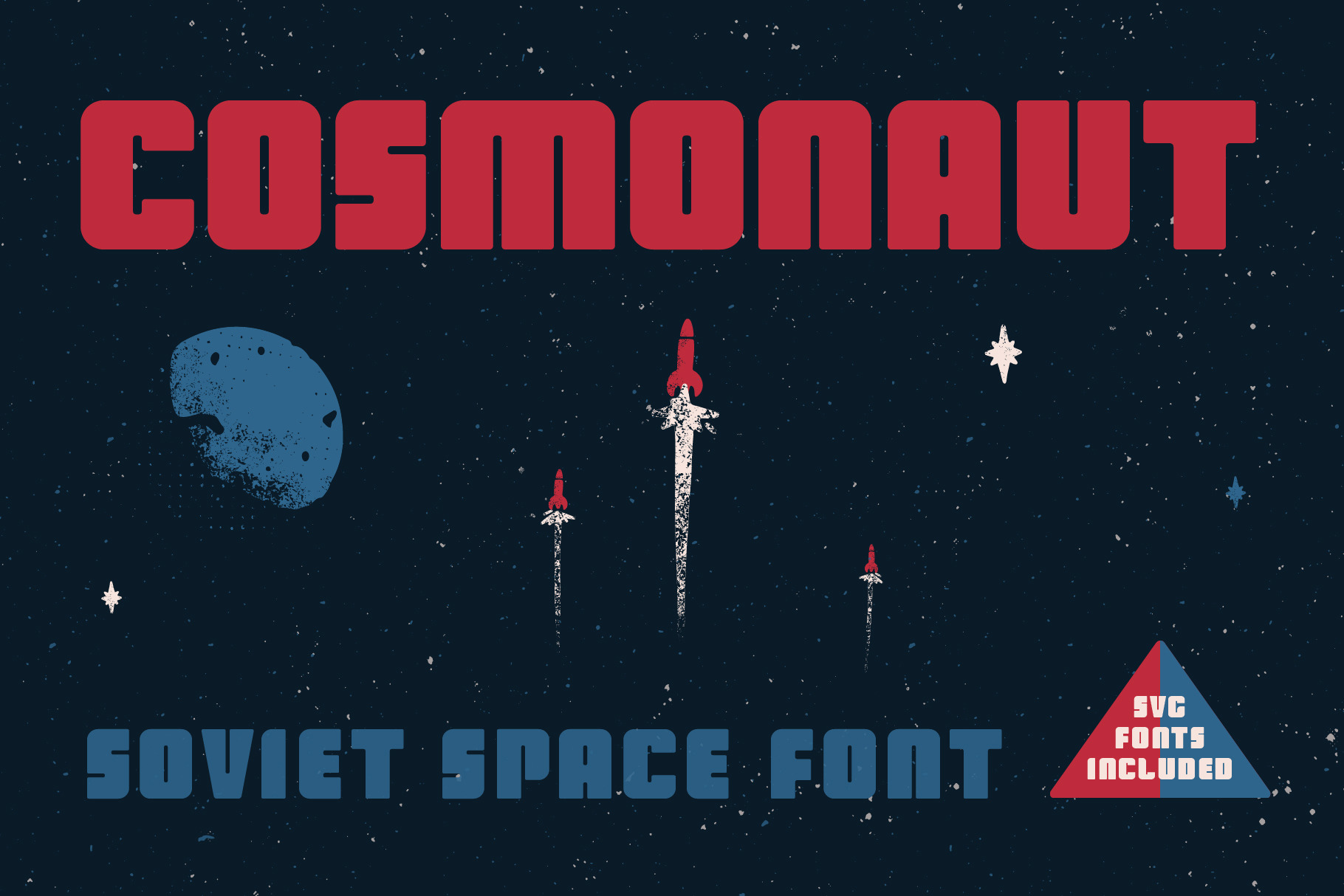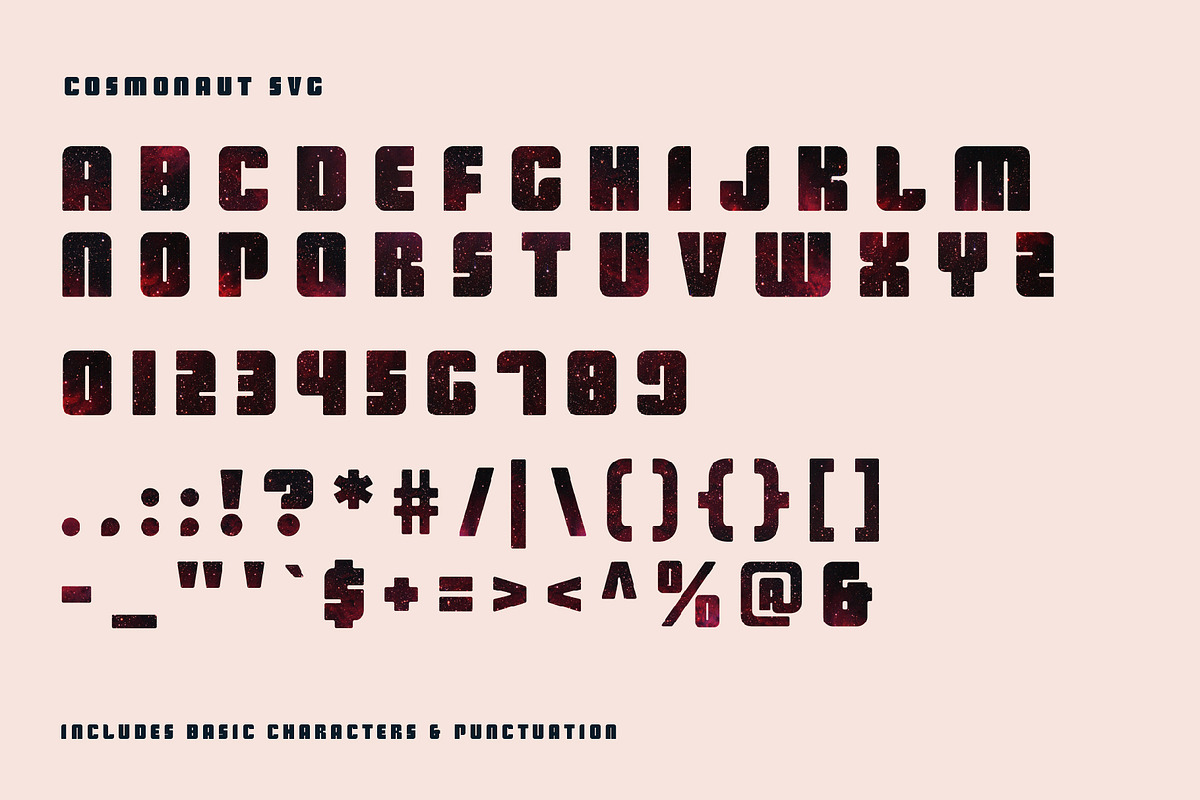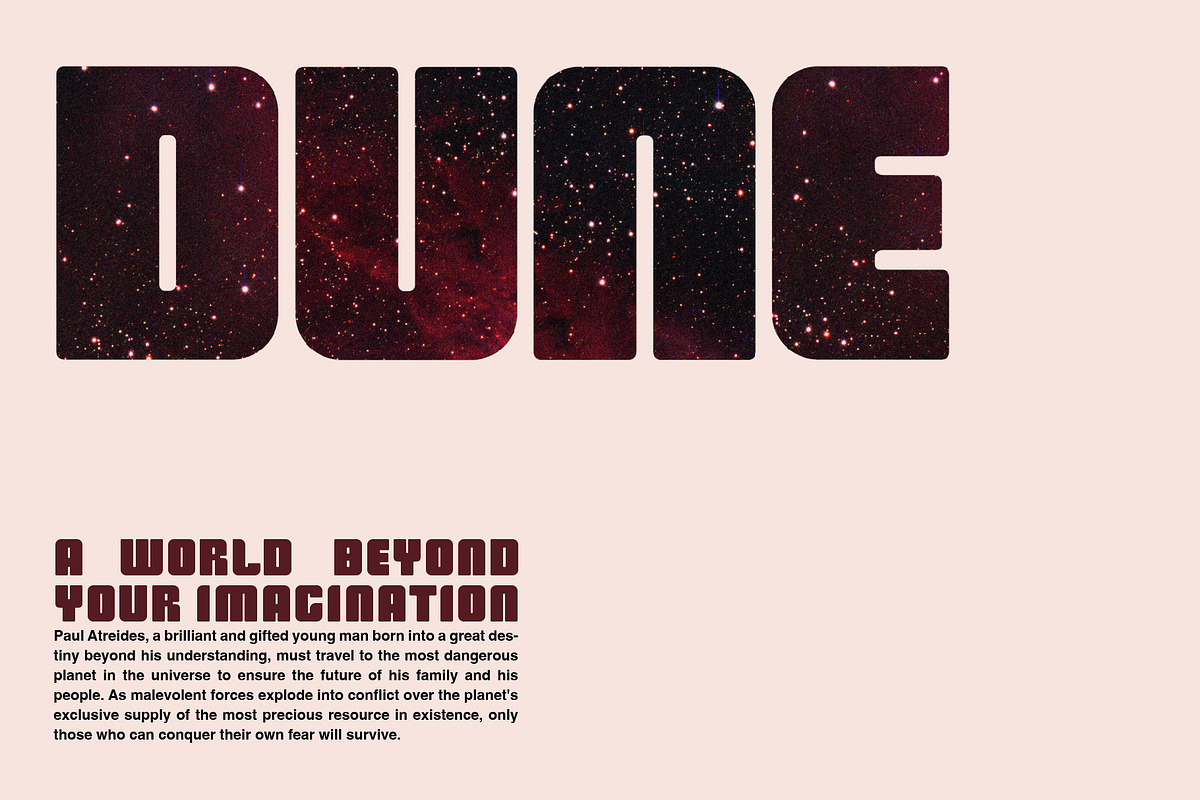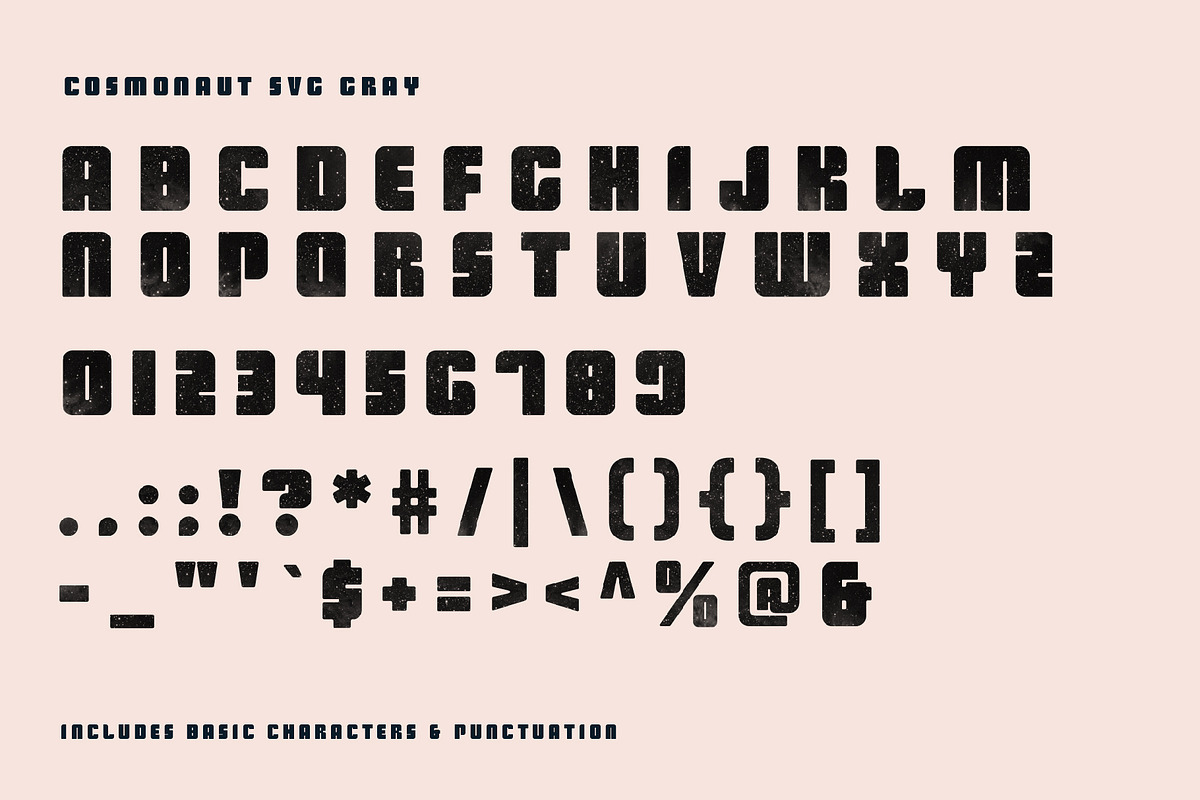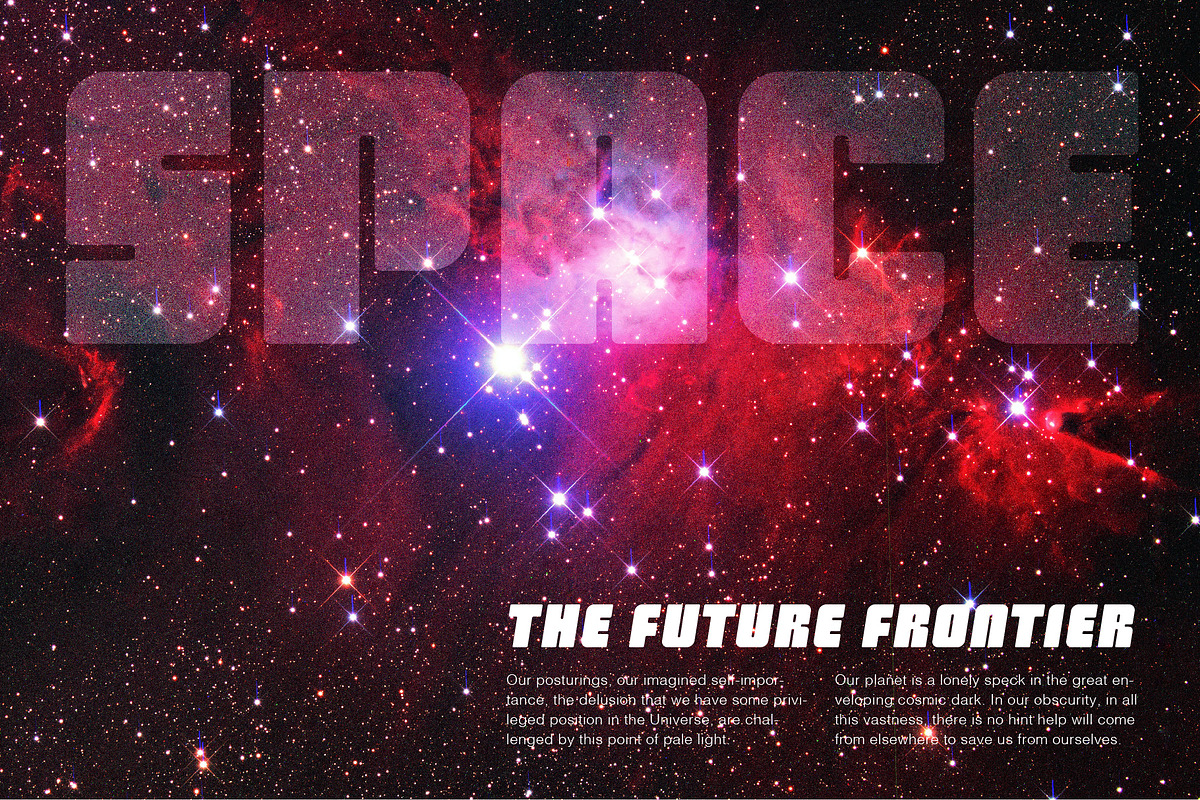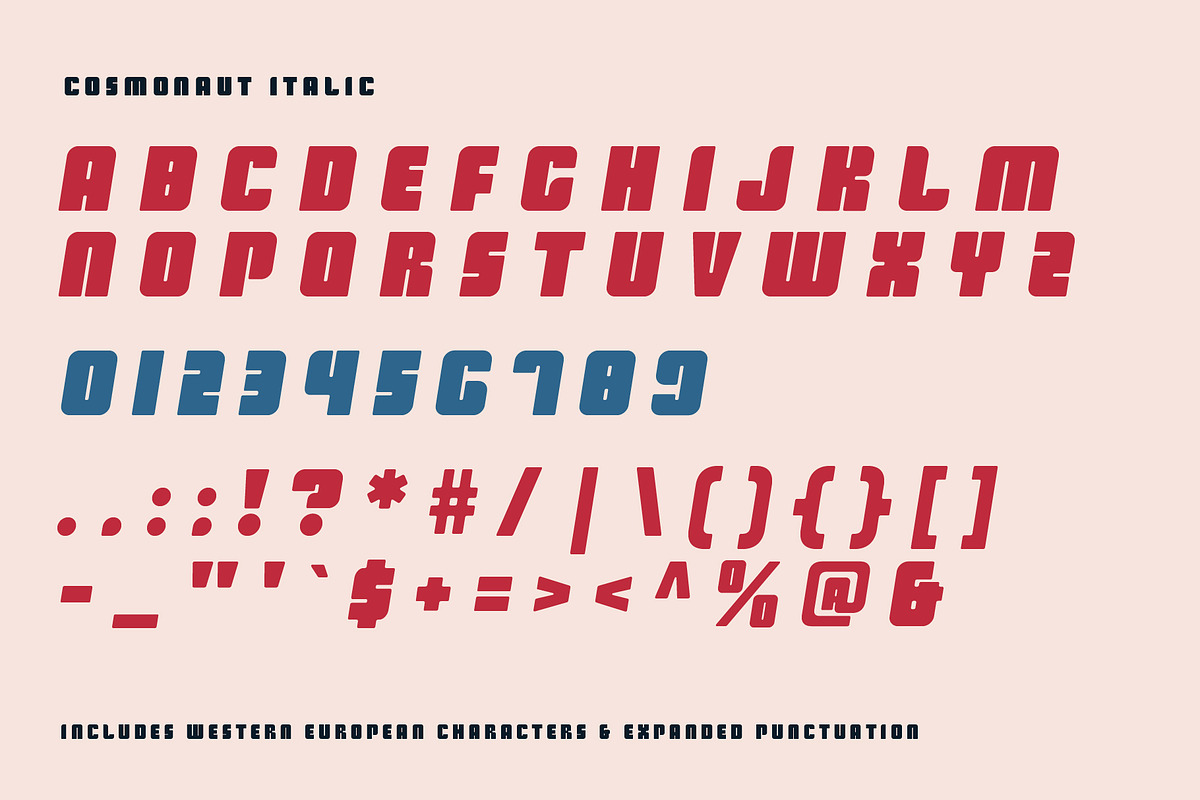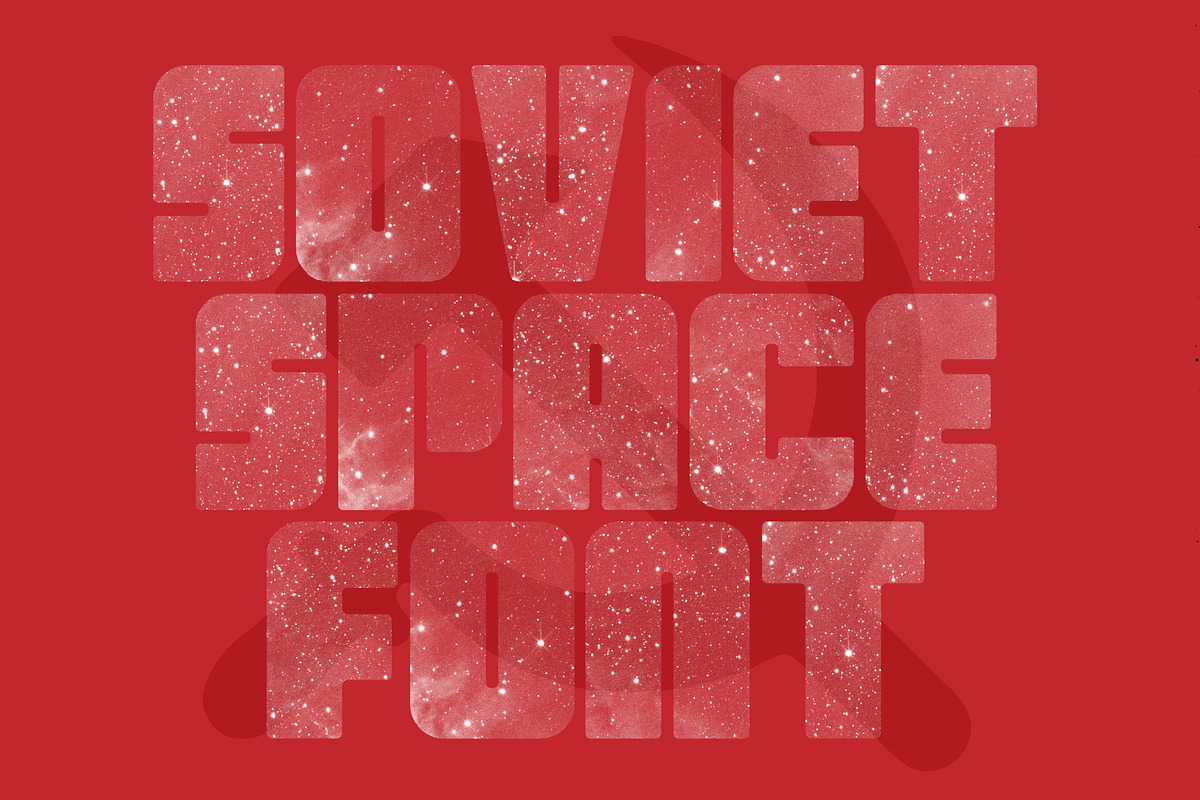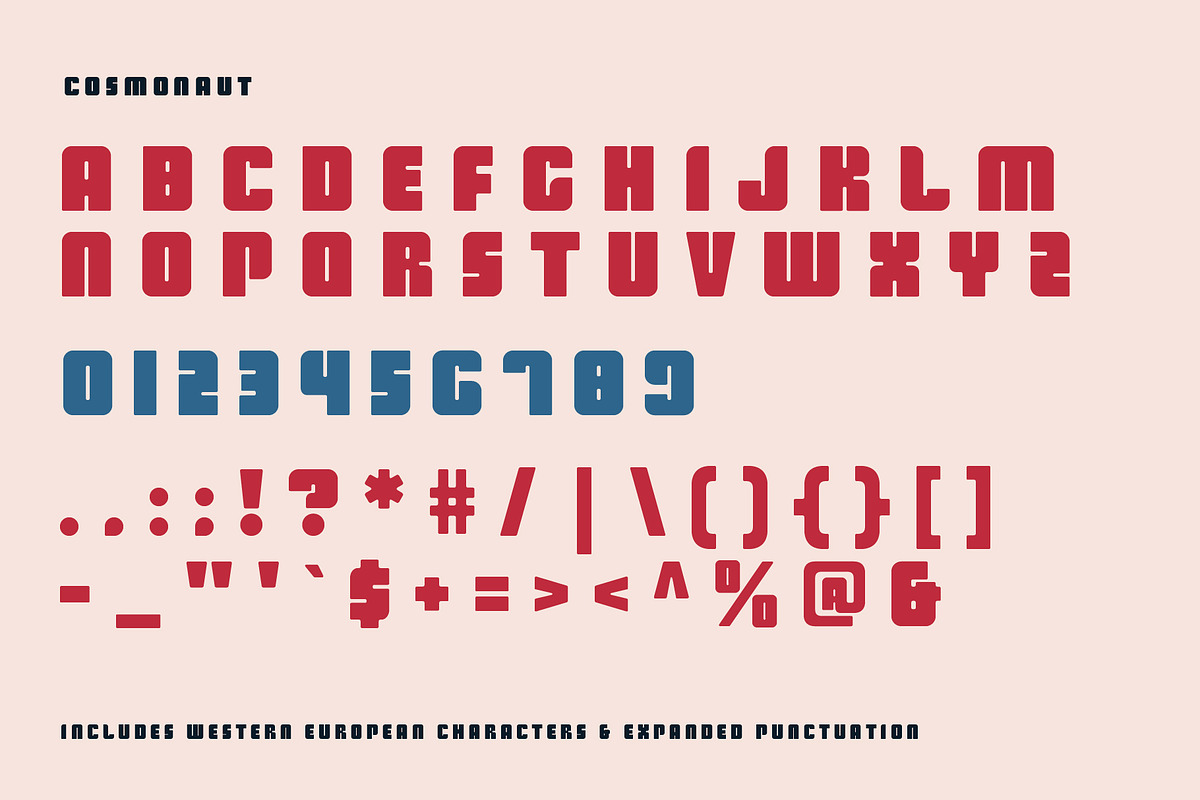
Cosmonaut - Soviet Space Font
Cosmonaut is a soviet themed retro display font that comes in 4 styles, including 2 space themed SVG fonts. It is great for space and sci-fi themed projects.